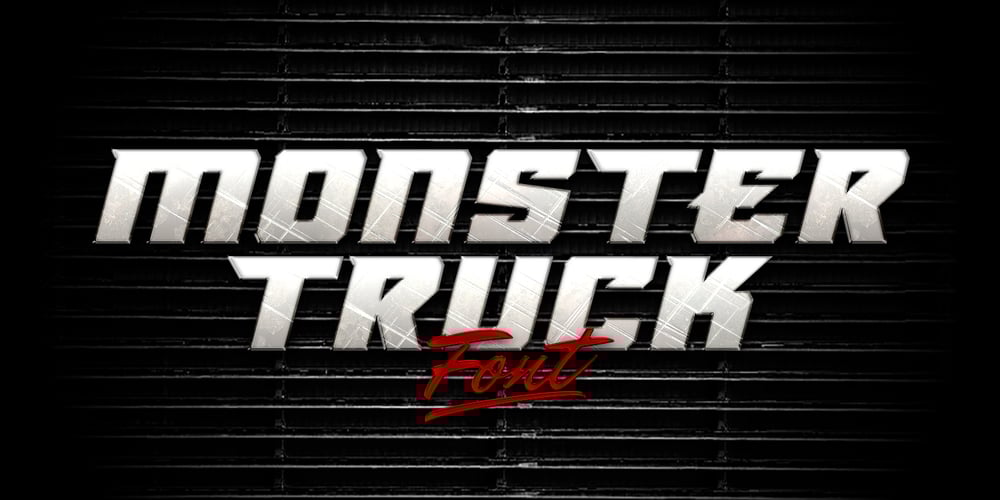
Monster Truck Font Family was designed by Swinn Jonathan and published by Alphabet Agency. Monster Truck contains 1 styles and family package options. Monster Truck is a dominant looking bold italic font inspired by extreme sports. The ‘in your face’ presence of this font is ideal for use in designs looking to snatch people’s attention especially in serious competitive sports, fitness, bodybuilding, toys and car wrap designs. The non-apologetic sharp edged spoiler like serifs, straight edges and bevel corners have made this one of the foundry’s most popular fonts.The font is all caps and fufills MyFonts character requirements that include a large number of characters including numbers, punctuation and Latin international characters.